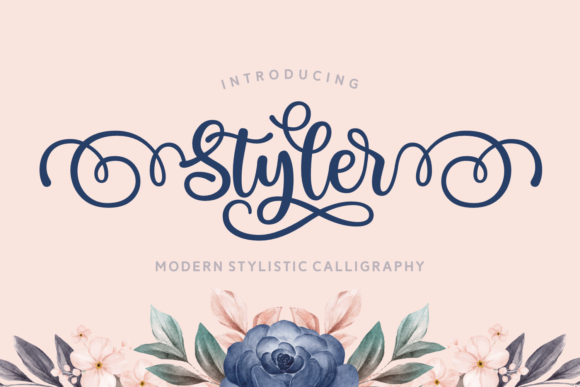
Unleash the Allure of Styler Font: A Symphony of Elegance and Personality for Your Creative Expressions
Journey into the realm of captivating typography with Styler Font, a meticulously crafted script font that exudes uniqueness and grace. Its enchanting handwritten style adds a touch of allure to any design, transforming your words into a captivating visual melody.
Styler Font's innate beauty shines through in a myriad of creative applications, from the delicate charm of wedding invitations to the heartfelt warmth of thank-you cards. Its versatility knows no bounds, seamlessly adapting to logos, greeting cards, and the vast expanse of digital designs.
Crafted with meticulous care, Styler Font is a digital masterpiece, meticulously designed to enhance your artistic vision. Its PUA encoding grants you effortless access to a treasure trove of glyphs and swashes, empowering you to add intricate details and flourishes that elevate your designs to new heights of sophistication.
With Styler Font as your creative companion, you hold the key to unlocking a world of captivating designs. Its elegant curves and flowing strokes breathe life into your words, captivating your audience with their undeniable charm. Embrace the power of Styler Font and let your creativity soar to new heights.